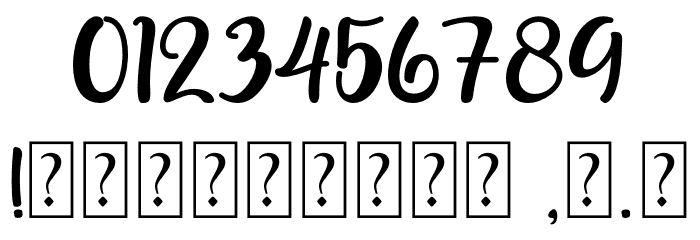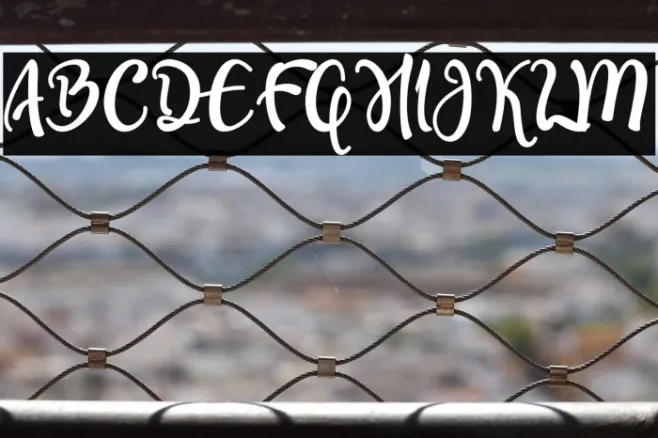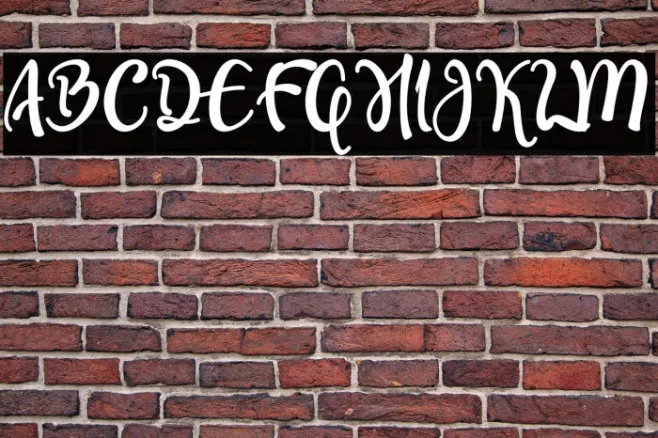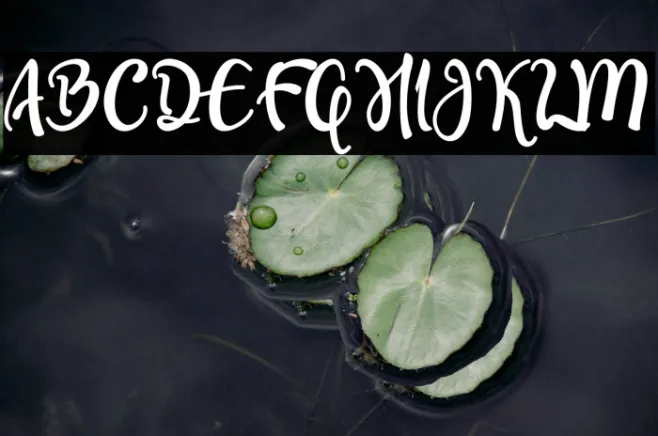
Olcigatte DEMO Font
This font features a lively and flowing script style, characterized by its elegant curves and smooth connections between letters. The uppercase letters are bold and dynamic, with a sense of movement that adds a playful yet sophisticated touch. The lowercase letters maintain a consistent flow, enhancing readability while preserving the font's artistic flair. Numbers are designed with the same fluidity, ensuring a cohesive look across all characters. The special characters are crafted to match the overall aesthetic, making them suitable for decorative purposes. This font is ideal for projects that require a personal and artistic touch, such as invitations, greeting cards, and branding materials.
A lively and flowing script font with elegant curves and smooth connections.
- Font: Olcigatte DEMO
- Proposed Projects: Ideal for invitations, greeting cards, branding materials, and decorative projects.
- Category: Script
- Use Case: Logos, Headlines, Decorative text